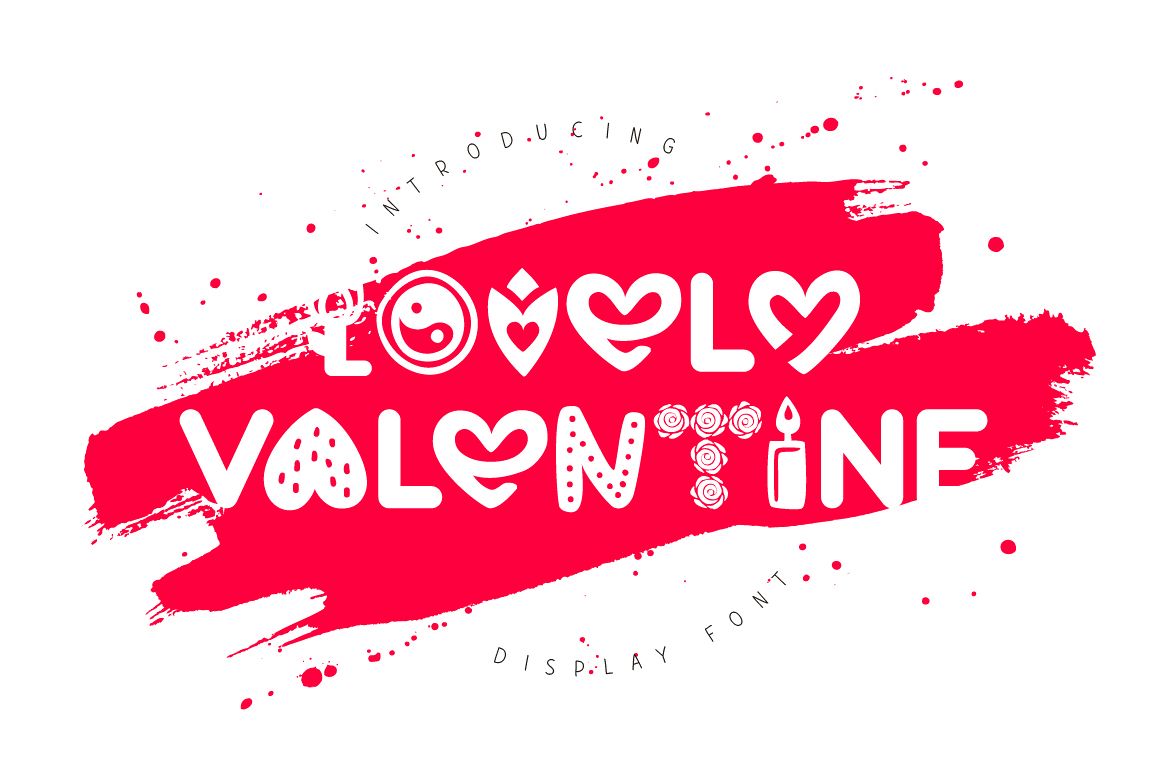
Lovely Valentine
Lovely Valentine is a font created specifically for the design of various products for St. Valentine's Day. It comes with usual uppercase characters and lowercase symbols, large set of punctuation glyphs, numerals, cyrillic characters and multilingual support.